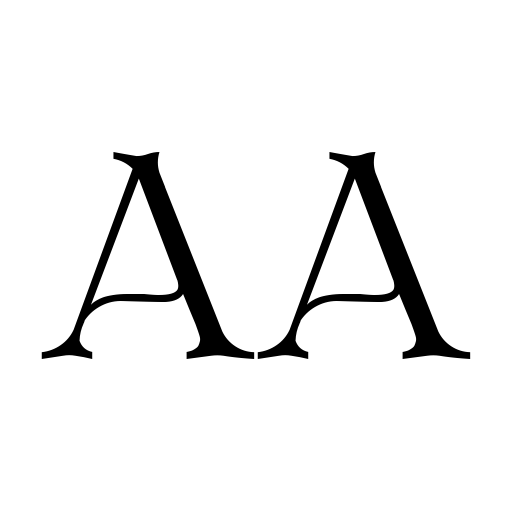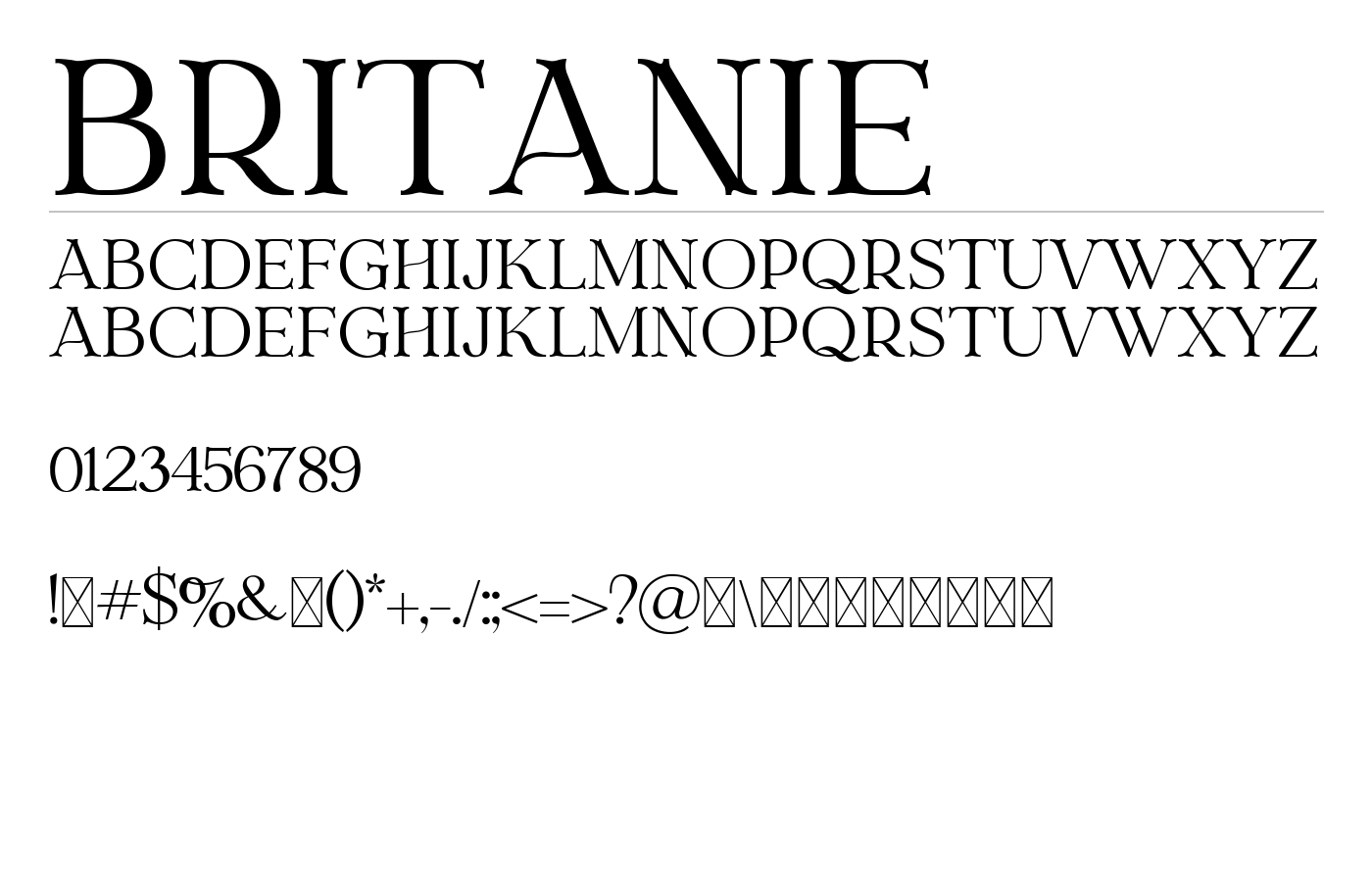
Britanie is an elegant serif font characterized by its high contrast between thick and thin strokes, thin bracketed serifs, and refined, slightly condensed letterforms that give it a sophisticated, classic appearance. Its timeless style with delicate curves and sharp terminals makes it ideal for luxury branding, editorial headlines, and upscale packaging, where a graceful and polished look is desired. This font works beautifully in contexts that call for a blend of tradition and modernity, lending a sense of refinement and exclusivity.
Britanie Font
About Britanie Font